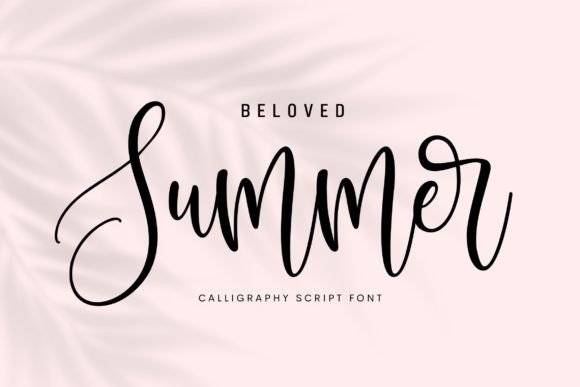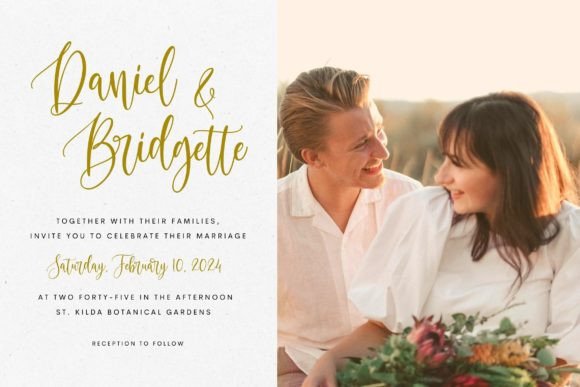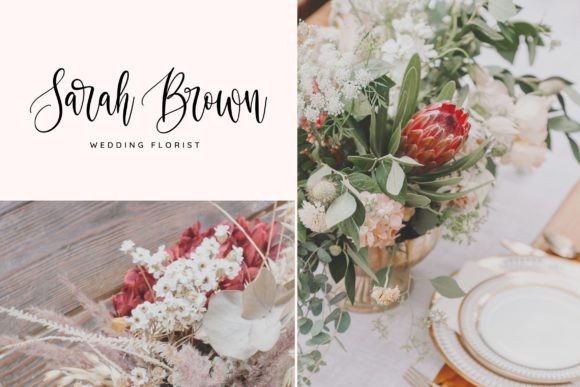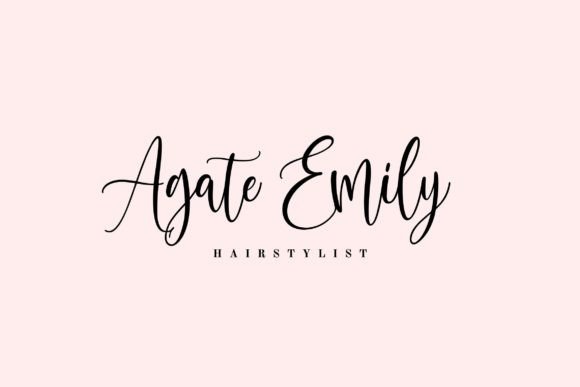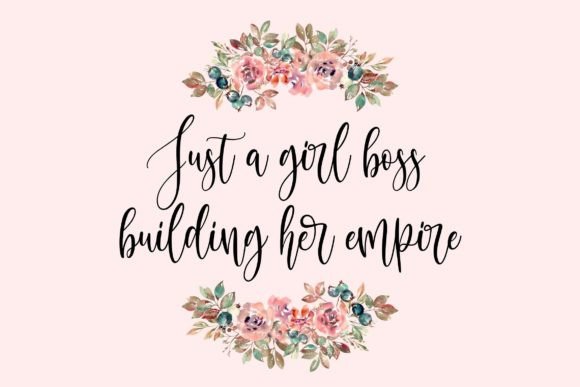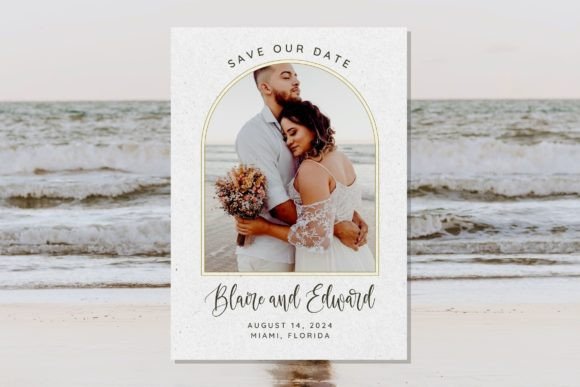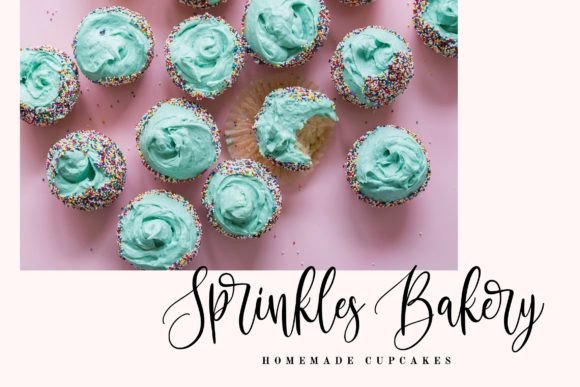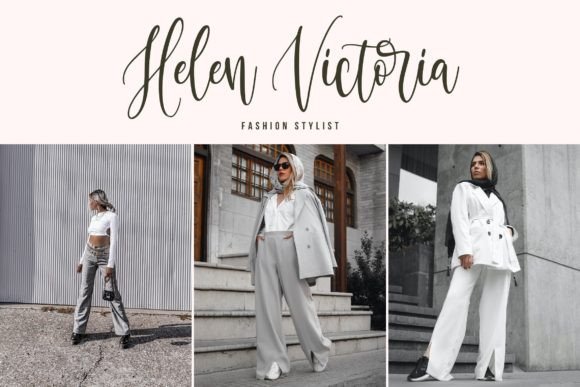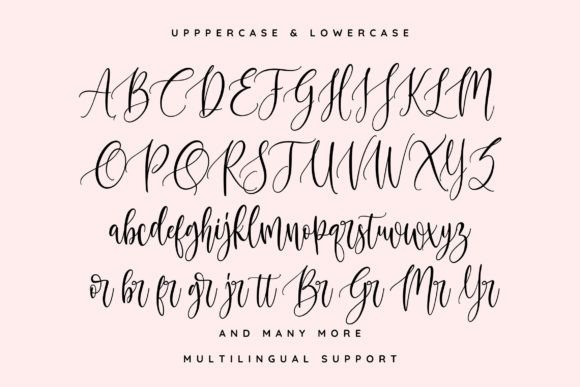
Beloved Summer Font
About Beloved Summer Font
Beloved Summer is a lively and inviting calligraphy script font that adds a playful and welcoming touch to your design projects. This versatile font boasts beautifully balanced characters, making it a perfect fit for a diverse range of design concepts. When you incorporate it into your creative endeavors, you’ll witness how it breathes life into your ideas, making them shine with character and charm.
The special charm of Beloved Summer lies in its bouncy and friendly calligraphy script. The characters in this font have a delightful rhythm that adds a touch of playfulness to your designs while maintaining an overall sense of balance and harmony.
Beloved Summer’s adaptability is one of its standout features, making it suitable for a wide variety of design applications.
In branding and logo design, Beloved Summer infuses a sense of approachability and creativity. Its calligraphic style communicates a friendly and welcoming brand personality, making your logo memorable and relatable.
In digital and print media, Beloved Summer enhances the visual appeal of text and graphics. Whether you’re working on advertising materials, blog headers, or social media posts, this font brings a lively and engaging quality to your content.
For invitations and personal projects, Beloved Summer adds a touch of whimsy and warmth to your designs. Whether you’re creating wedding invitations, greeting cards, or personal stationery, this font makes your creations come alive with character and charm.
In summary, Beloved Summer is a bouncy and friendly calligraphy script font that excels in a variety of design contexts. Its versatility, playfulness, and well-balanced characters make it an excellent choice for a wide range of creative ideas. When you incorporate Beloved Summer into your projects, you’ll discover how it breathes life into your designs, infusing them with a unique and inviting personality that captivates your audience. Make Beloved Summer a part of your creative toolbox, and watch as it transforms your ideas into vibrant and engaging creations.